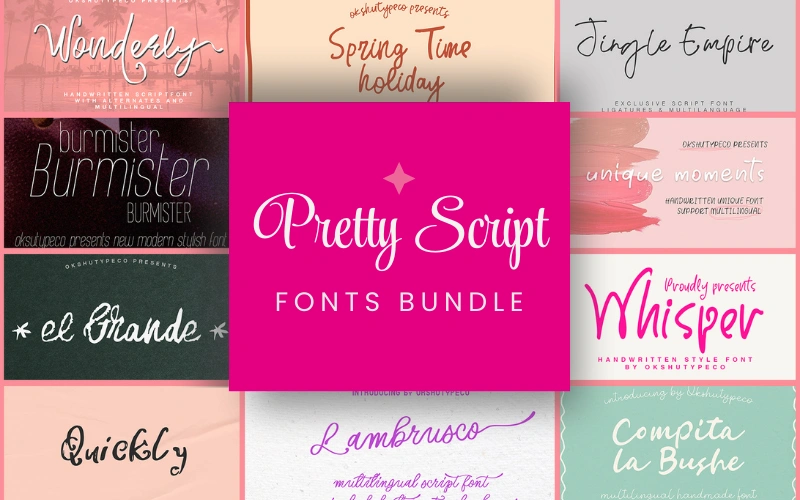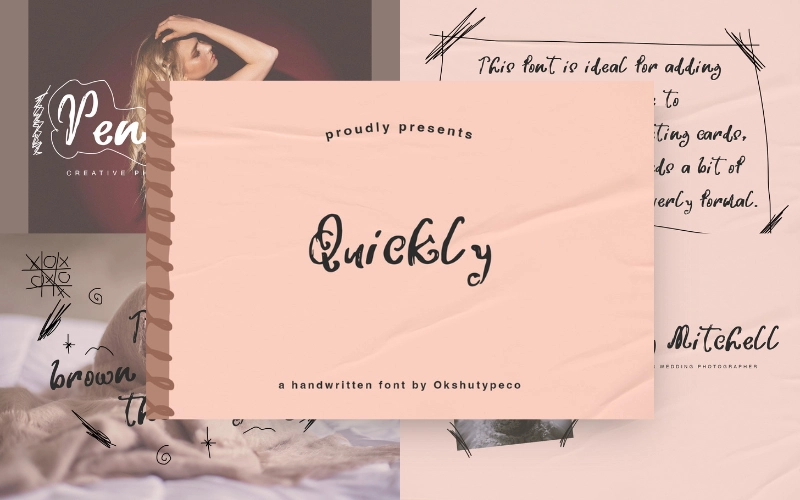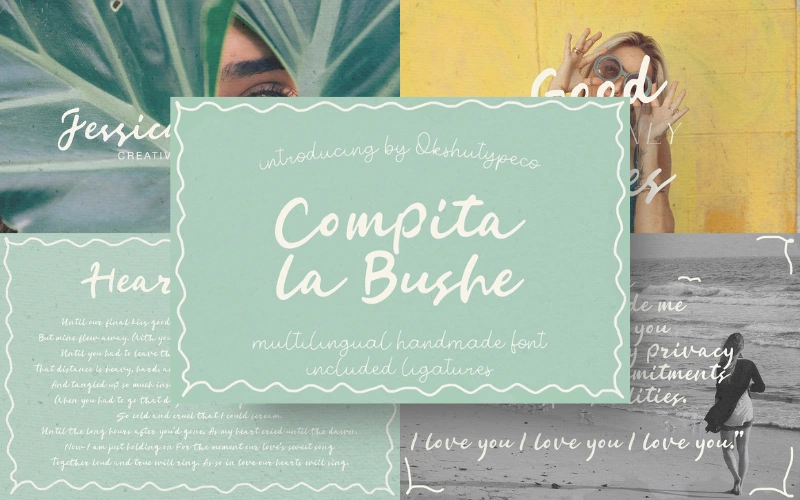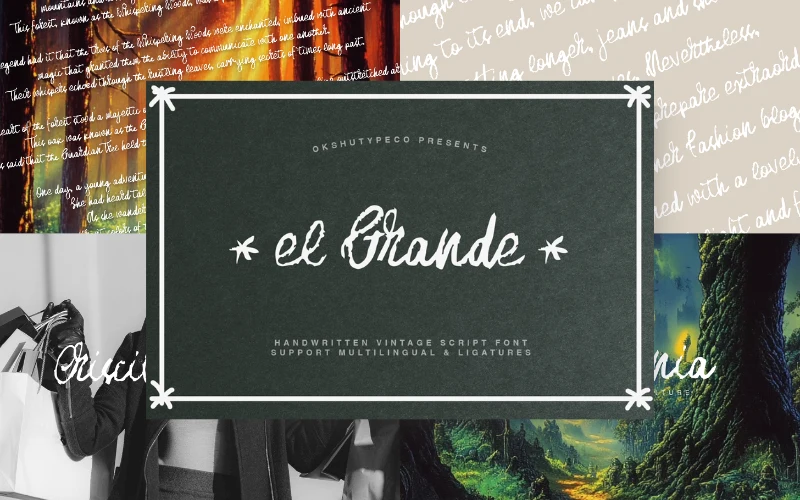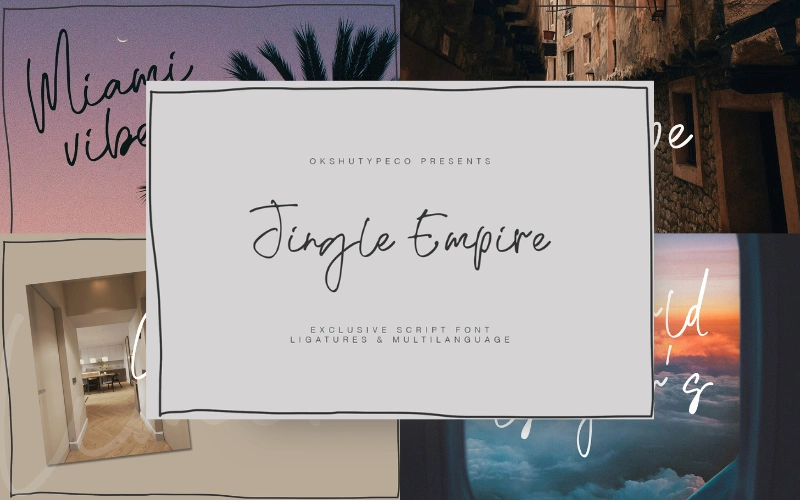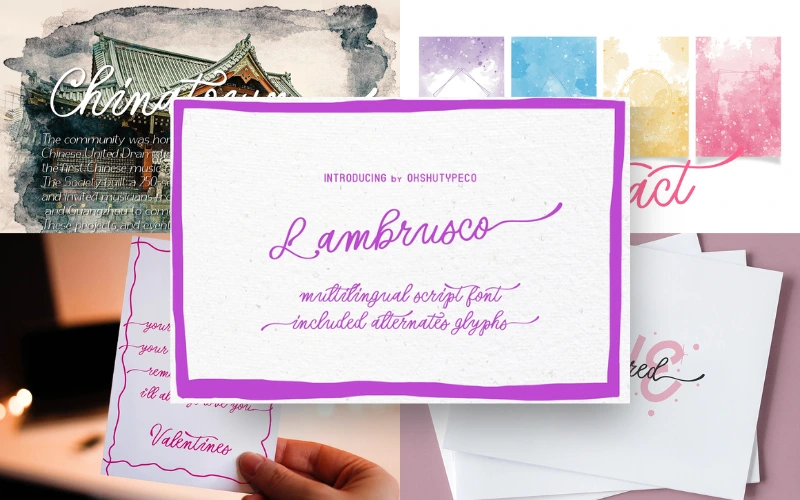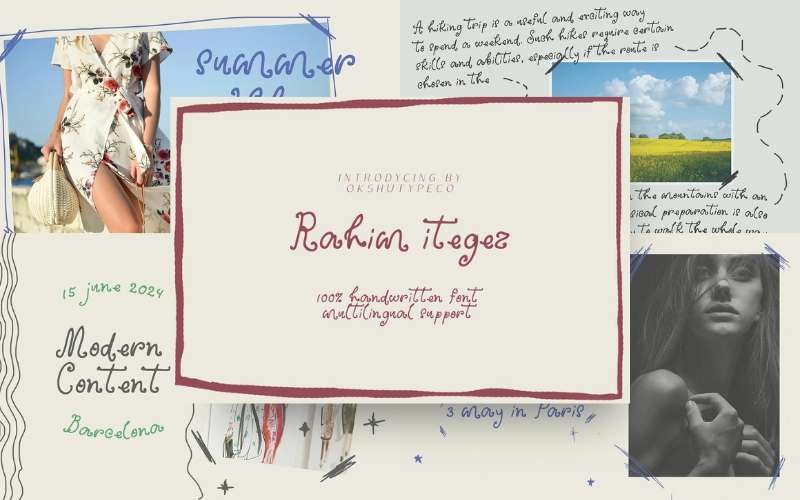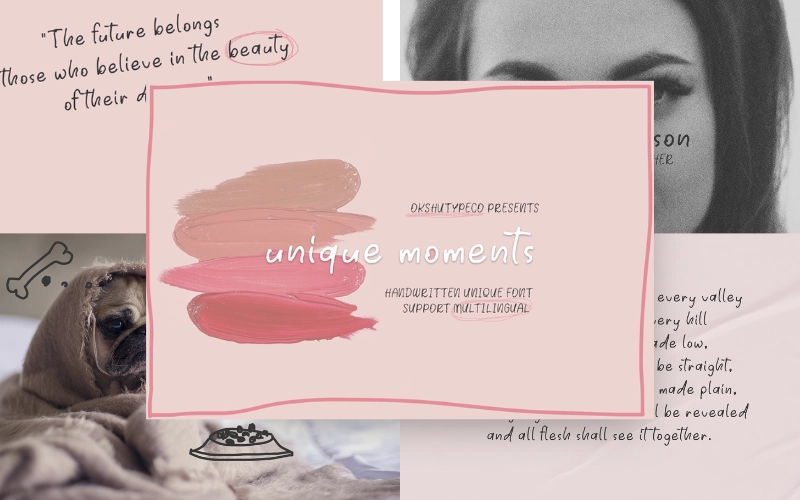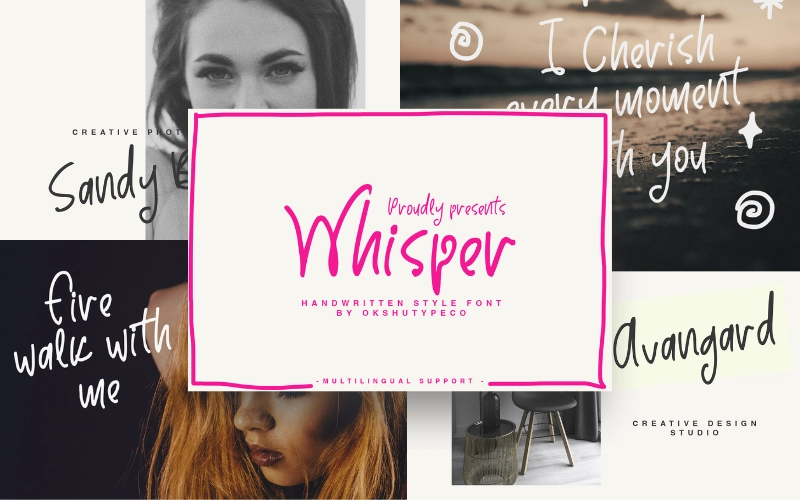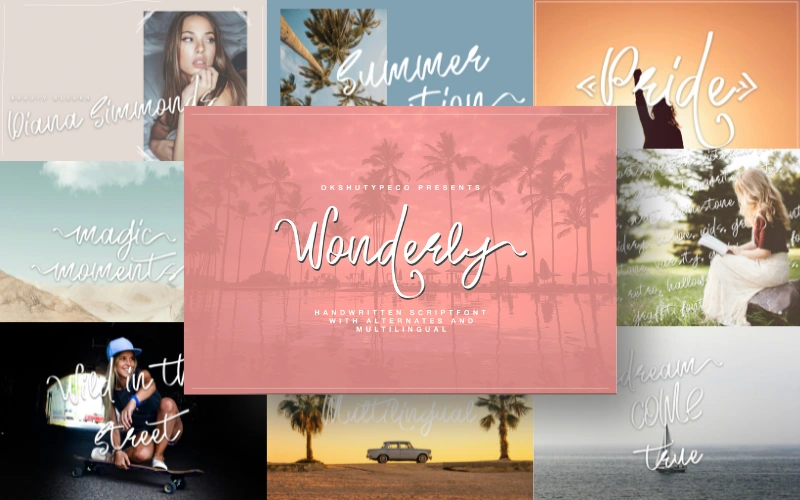
12-in-1 Pretty Script Fonts Bundle
These pretty script fonts are designed to bring charm, personality, and beauty to your creative projects.
With their smooth strokes and versatile styles, they are perfect for branding, invitations, logos, social media, packaging, and beyond.
Whether you’re working on a client’s branding kit or personal craft project, these fonts ensure your design looks unique and professional.
These Pretty Script Fonts Include:
Sans Serif Font:
- Burmister
Handwritten Script Fonts:
SpringTimeHoliday – Includes ligatures and multilingual support
Whisper – Includes multilingual support
El Grande – Includes ligatures and multilingual support
Unique Moments – Includes multilingual support
Wonderly – Includes alternates and multilingual support
Jingle Empire – Includes ligatures and multilingual support
Quickly – Includes handmade style
Compita La Buche – Includes ligatures and multilingual support
Listing – Includes ligatures and multilingual support
Rah Itegez – Includes multilingual support
Lambrusco – Includes alternates and multilingual support
Burmister Font – Sans Serif Font
Compita La Buche Font
El Grande Font
Jingle Empire Font
Lambrusco Font
Listing Font
Quickly Font
Rahim Itegez Font
Springtime Holiday Font
Unique Moments Font
Whisper Font
Wonderly Font